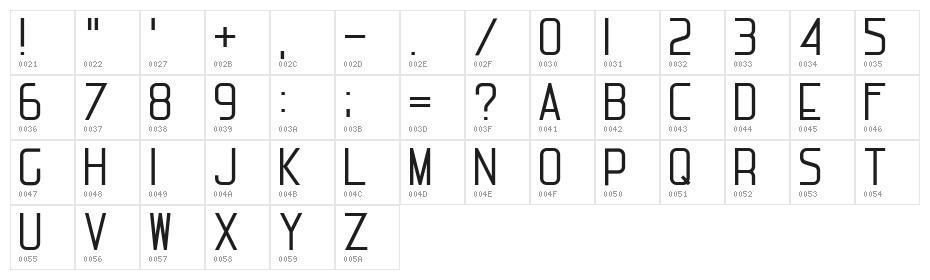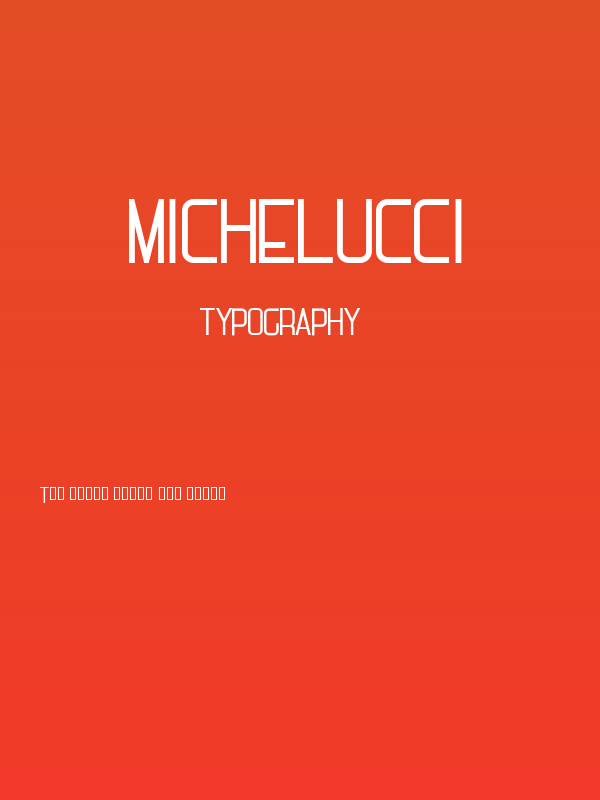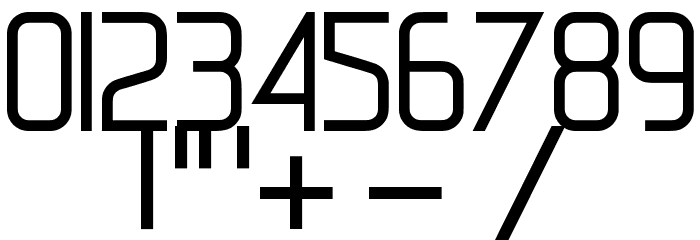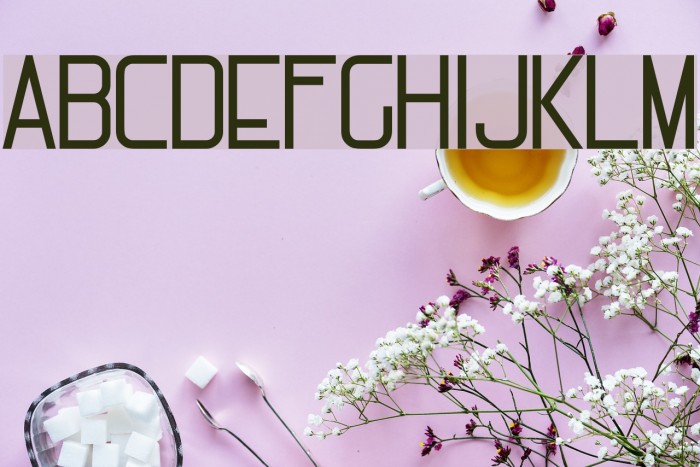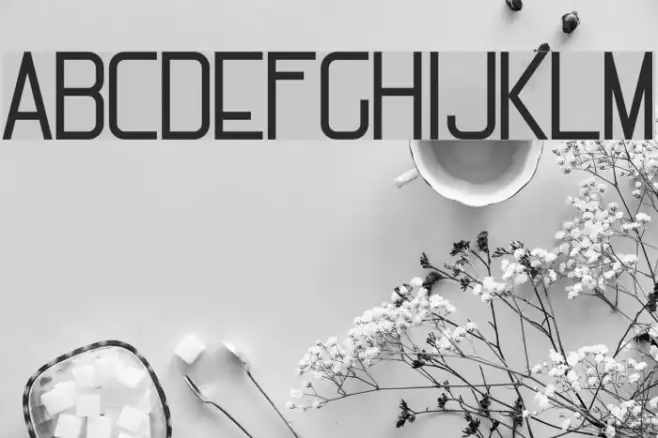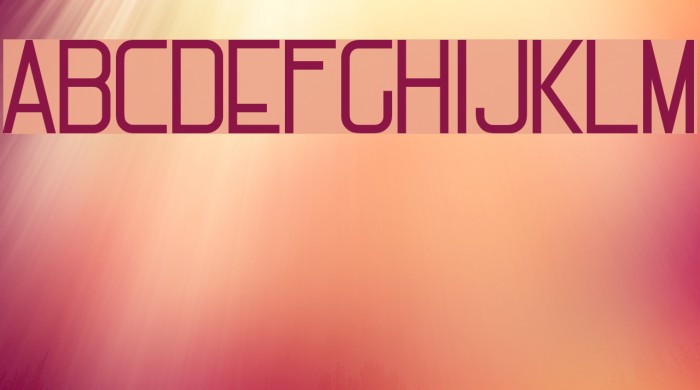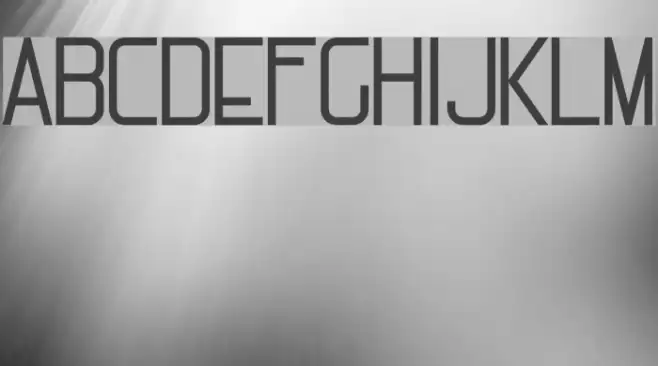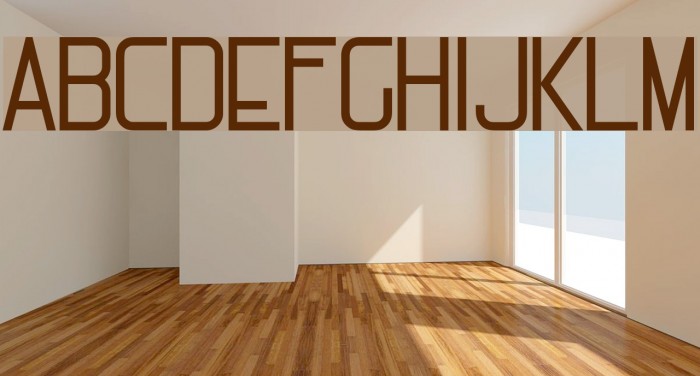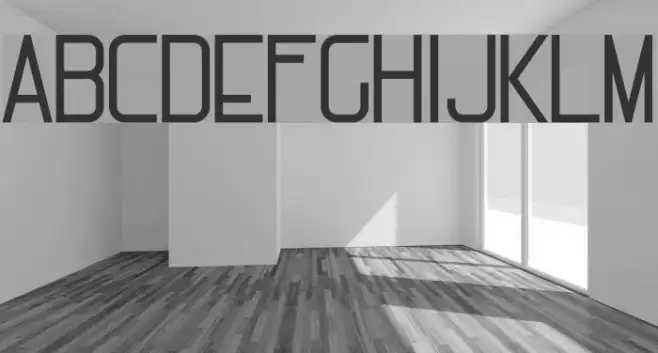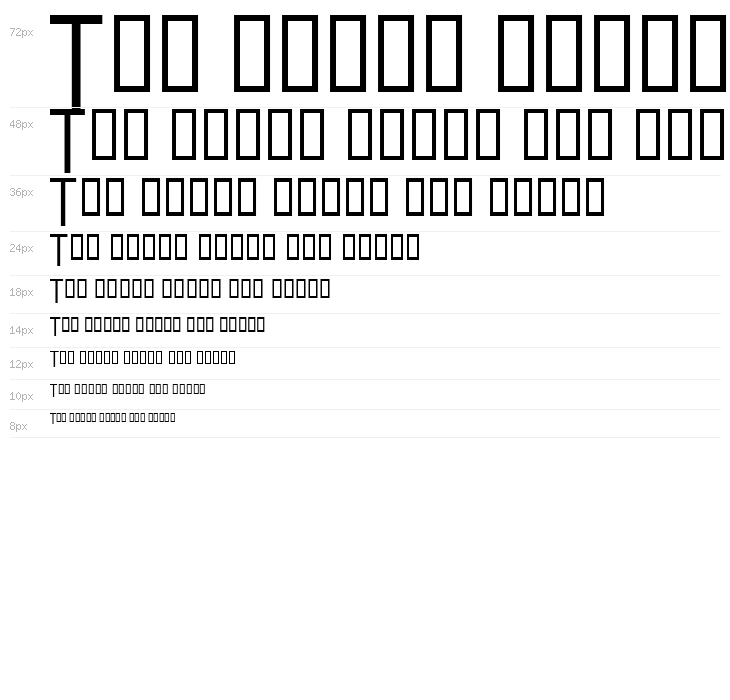
Michelucci Font
Michelucci Description
This font features a modern and geometric design with clean, straight lines and a uniform stroke width. The characters are constructed with a consistent height and width, giving it a structured and orderly appearance. The uppercase letters are bold and impactful, while the lowercase letters maintain the same geometric style, ensuring readability and visual harmony. The numerals are distinct and align well with the overall design, making them suitable for various applications. Special characters are included, maintaining the same geometric and modern aesthetic. This font is ideal for projects that require a contemporary and professional look.
| Proposed Projects | Ideal for branding, advertising, digital interfaces, and editorial design. |